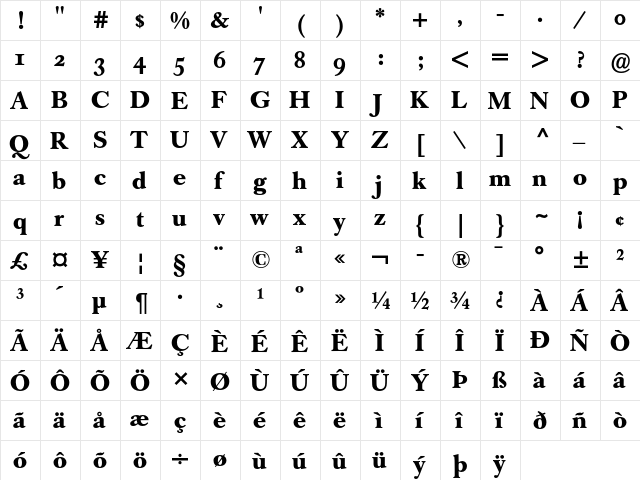
Caslon Book BE Bold OsF Font Preview
Caslon Book BE Bold OsF
Design Context for Caslon Book BE Typeface
Caslon Book BE takes a measured approach to typography — its balanced proportions and neutral character make it a reliable workhorse for both digital and print work. The heavy weight commands attention and anchors typographic hierarchies.